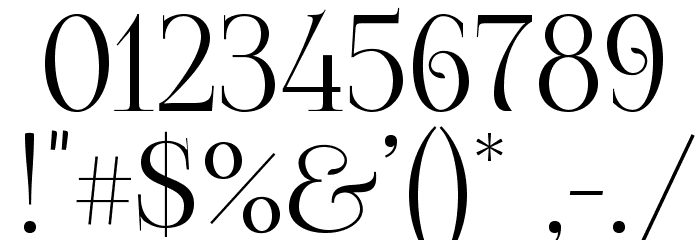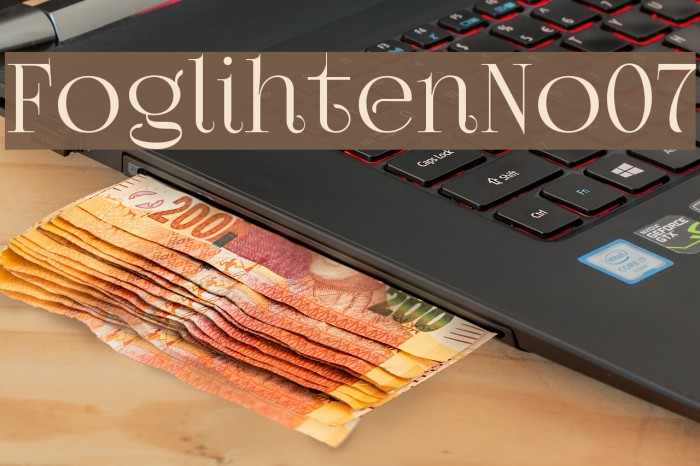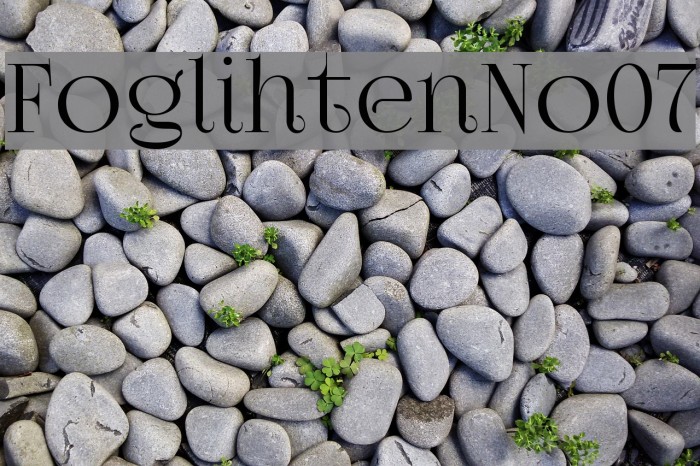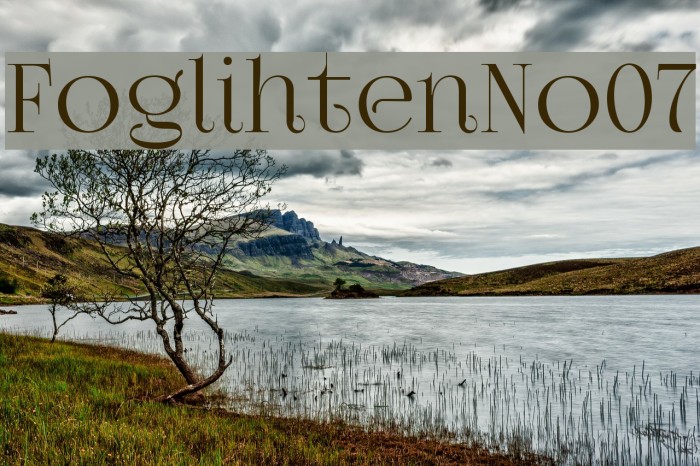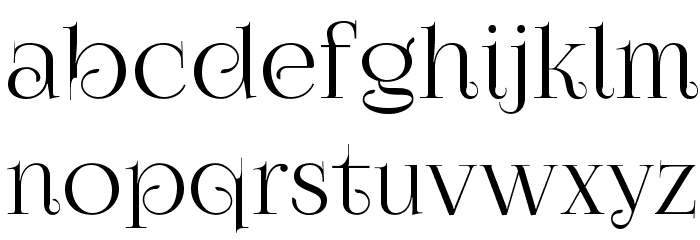
FoglihtenNo07 Font
FoglihtenNo07 Description
This font exhibits a sophisticated and elegant style with a modern twist. The characters are characterized by their thin, delicate strokes and subtle serifs, giving them a refined appearance. The uppercase letters are tall and stately, while the lowercase letters maintain a graceful flow. The numerals are consistent with the overall design, featuring clean lines and a balanced structure. Special characters are thoughtfully designed, maintaining the font's aesthetic integrity. This font is ideal for projects that require a touch of elegance and modernity.
A refined and elegant serif font with modern characteristics from Uncategorized fonts.
- Proposed Projects: Ideal for luxury branding, wedding invitations, editorial design, and high-end product packaging.
- Use Case: Headlines, Logos, Invitations